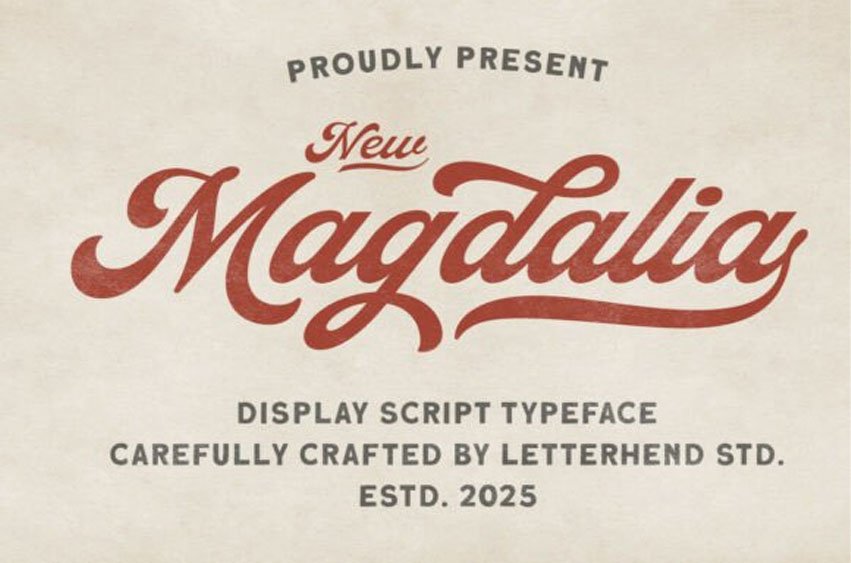
Magdalia Font is a vintage display script font that blends retro charm with a modern handcrafted touch. Its flowing strokes and stylish swashes make it perfect for logos, packaging, posters, apparel, or any design that wants to feel strong, classic, and full of personality.